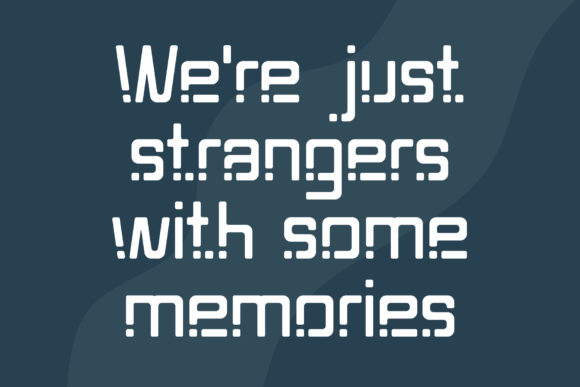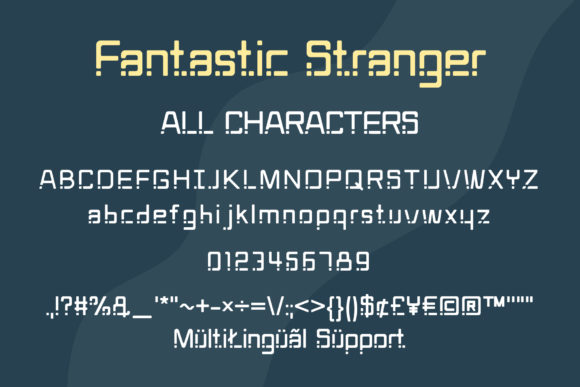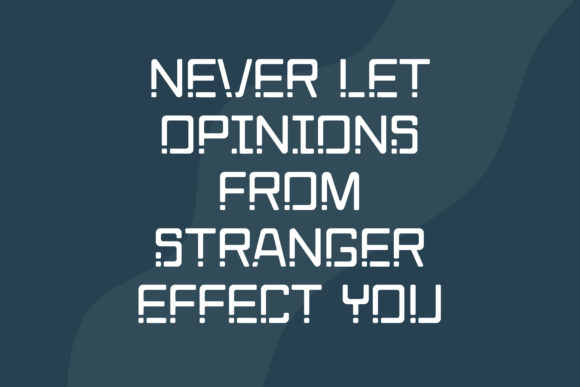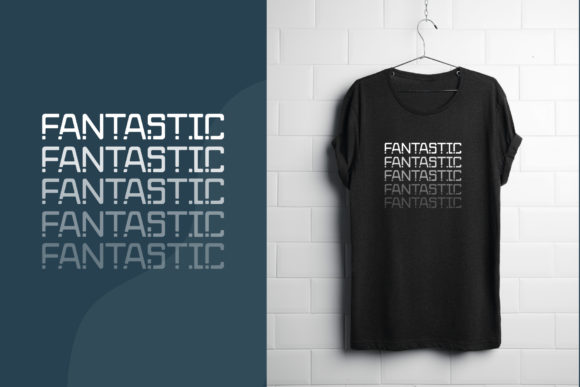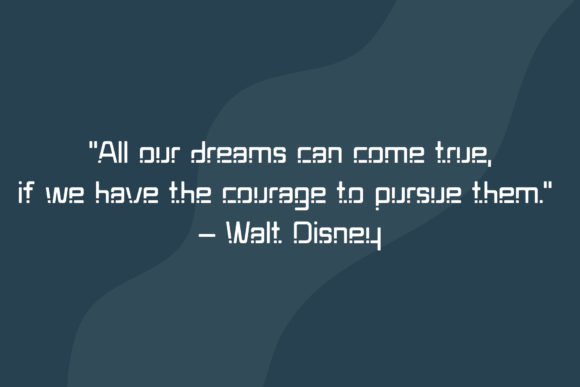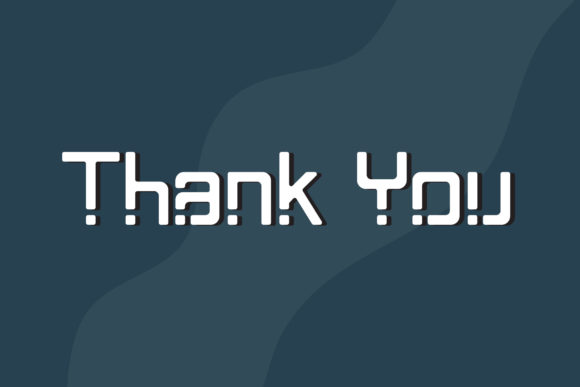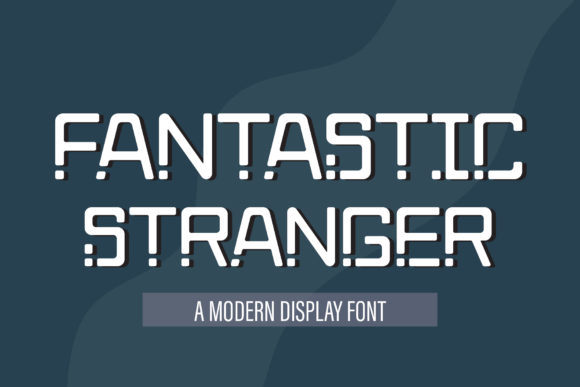
Fantastic Stranger Font: Elevate Your Designs with a Futuristic Twist
In the realm of typography, fonts play a pivotal role in shaping the visual identity of a brand, product, or creative project. Among the myriad of fonts available, the Fantastic Stranger Font stands out as a unique and captivating choice for designers and crafters. This abstract techno display font is engineered to add a futuristic flair to your logos, branding, posters, t-shirts, and a plethora of other design endeavors.
Unleashing the Power of Fantastic Stranger Font
Fantastic Stranger is not just another font; it’s an experience. Its abstract and techno-inspired characters are meticulously crafted to convey a sense of innovation and forward-thinking. This font is the perfect fit for all of your logos, branding, posters, t-shirt designs, and more, offering a versatility that is hard to find in more traditional fonts.
Key Features of Fantastic Stranger Font
- Abstract and Techno Display: The font boasts an abstract and techno display style that is sure to make your designs stand out in any medium.
- High Versatility: Whether you’re working on a logo, a poster, a t-shirt design, or any other project, Fantastic Stranger adapts seamlessly, ensuring your message is conveyed with style.
- Futuristic Aesthetic: The futuristic look of the font adds a modern and innovative feel to your designs, perfect for brands and projects looking to push boundaries.
Applications of Fantastic Stranger Font
The applications of Fantastic Stranger Font are vast and varied. Here are a few ideas to get you started:
- Logo Design: Create a memorable logo that embodies the spirit of innovation and technology with Fantastic Stranger.
- Branding: Elevate your brand’s visual identity with a font that screams modernity and forward-thinking.
- Posters: Design eye-catching posters for events, promotions, or awareness campaigns that demand attention.
- T-Shirt Designs: Stand out in the apparel industry with unique and stylish t-shirt designs that appeal to tech-savvy audiences.
- Digital Media: From social media graphics to website headers, Fantastic Stranger can add a professional and cutting-edge look to your digital presence.
Why Choose Fantastic Stranger Font?
In a world where design trends are constantly evolving, having a font that can keep up with the pace is invaluable. Here are a few reasons why Fantastic Stranger Font should be your go-to choice:
- Uniqueness: It offers a fresh and distinctive look that can set your designs apart from the competition.
- Flexibility: Its versatility means you can use it across a wide range of projects and mediums.
- Modern Appeal: The font’s modern aesthetic ensures your designs feel current and engaging.
Fantastic Stranger Font is more than just a typeface; it’s a design statement. With its abstract techno display style, it offers a unique avenue for designers and crafters to express their creativity and convey a sense of innovation. Whether you’re looking to brand a startup, design a compelling poster, or create stylish apparel, Fantastic Stranger Font is an excellent choice. Embrace the future of design with Fantastic Stranger and watch your projects transform with a touch of modern sophistication.